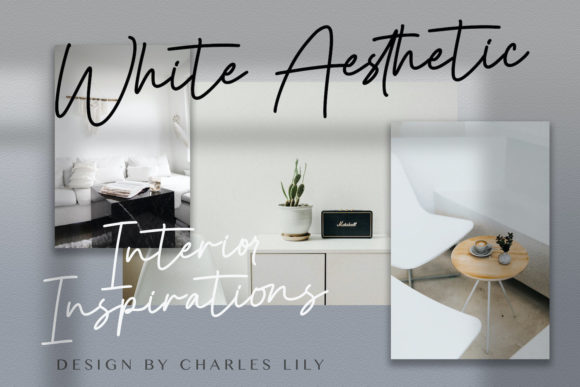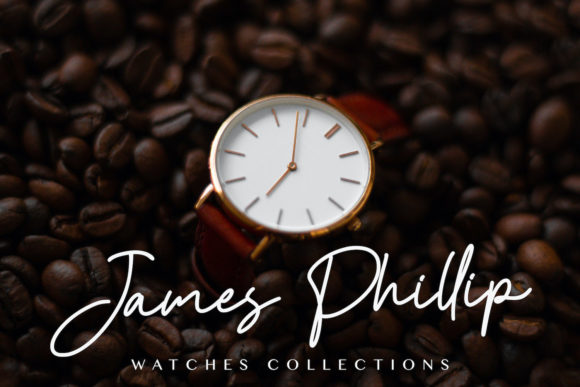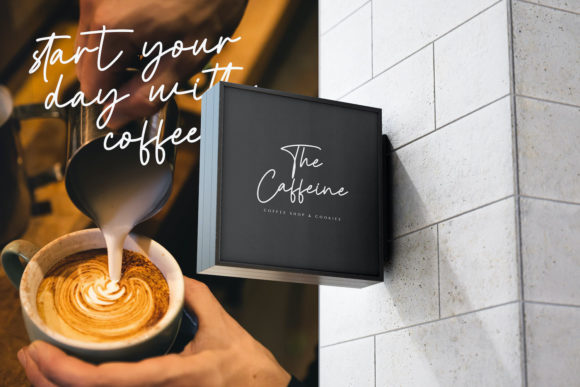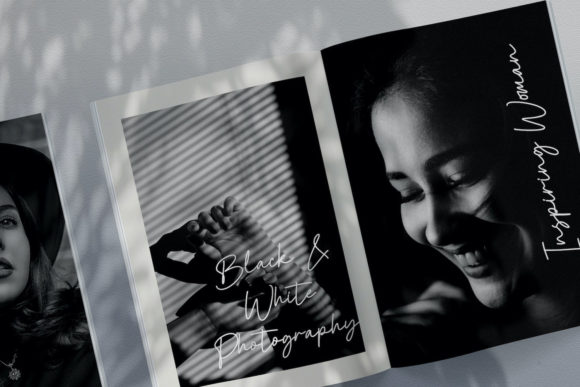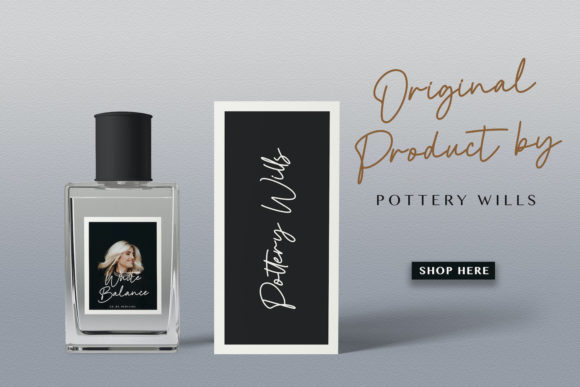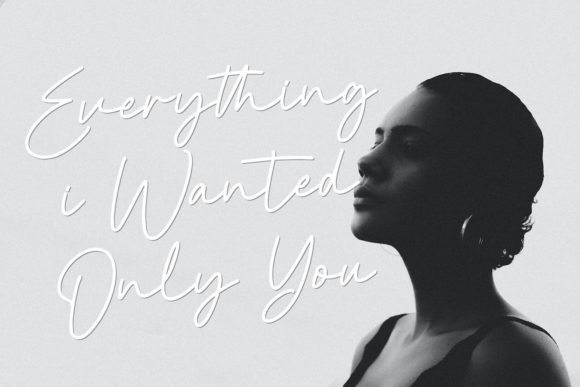
Cinta Monyett Font: Adding a Touch of Whimsy to Your Designs
Cinta Monyett is a lovely script font that has been making waves in the design community with its charming, playful characters that seem to dance along the baseline. This beautiful font is perfect for designers and crafters looking to add a touch of whimsy to their creative projects. In this article, we’ll take a closer look at Cinta Monyett and explore how it can elevate your designs to the next level.
The Charm of Cinta Monyett
Cinta Monyett is a script font that exudes a sense of playfulness and charm. Its characters are designed to be highly legible, making it perfect for use in a variety of design projects, from invitations and greeting cards to posters and social media graphics. The font’s unique and irregular shape gives it a hand-drawn feel, making it perfect for designers looking to add a personal touch to their work.
Key Features of Cinta Monyett
- Playful Characters: Cinta Monyett’s characters are designed to be playful and charming, with a sense of movement and energy.
- Highly Legible: Despite its playful nature, Cinta Monyett is highly legible, making it perfect for use in a variety of design projects.
- Hand-Drawn Feel: The font’s unique and irregular shape gives it a hand-drawn feel, making it perfect for designers looking to add a personal touch to their work.
- Versatile: Cinta Monyett is a versatile font that can be used in a variety of design projects, from invitations and greeting cards to posters and social media graphics.
How to Use Cinta Monyett in Your Designs
Cinta Monyett is a versatile font that can be used in a variety of design projects. Here are a few ideas to get you started:
- Invitations and Greeting Cards: Cinta Monyett is perfect for use in invitations and greeting cards, adding a touch of whimsy and personality to your designs.
- Posters and Flyers: Use Cinta Monyett to add a playful touch to your posters and flyers, making them stand out from the crowd.
- Social Media Graphics: Cinta Monyett is perfect for use in social media graphics, adding a personal touch to your posts and stories.
- Branding and Packaging: Use Cinta Monyett to add a touch of whimsy to your branding and packaging, making your products stand out on store shelves.
Tips for Getting the Most Out of Cinta Monyett
Here are a few tips for getting the most out of Cinta Monyett:
- Experiment with Different Sizes: Cinta Monyett looks great in a variety of sizes, so don’t be afraid to experiment and find the perfect size for your design.
- Pair it with Other Fonts: Cinta Monyett pairs well with a variety of other fonts, so try pairing it with a bold sans-serif font for a striking contrast.
- Use it in Combination with Images: Cinta Monyett looks great in combination with images, so try using it to add a touch of whimsy to your graphics and illustrations.
Cinta Monyett is a lovely script font that is perfect for designers and crafters looking to add a touch of whimsy to their creative projects. With its playful characters, highly legible design, and hand-drawn feel, Cinta Monyett is a versatile font that can be used in a variety of design projects. Whether you’re creating invitations and greeting cards, posters and flyers, or social media graphics, Cinta Monyett is sure to make your designs stand out. So why not give it a try and see the difference it can make?